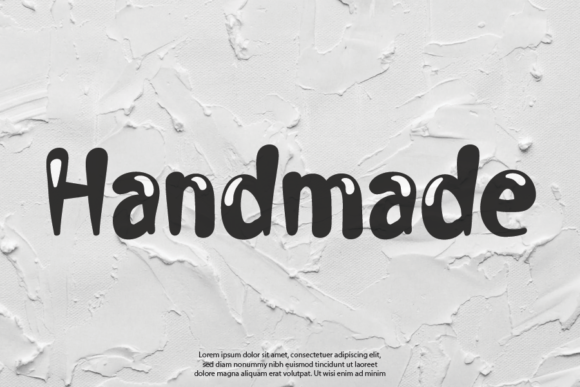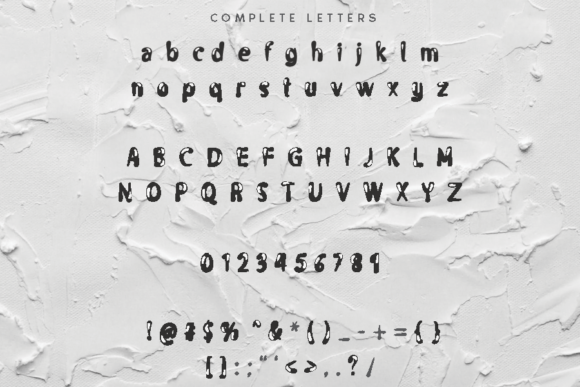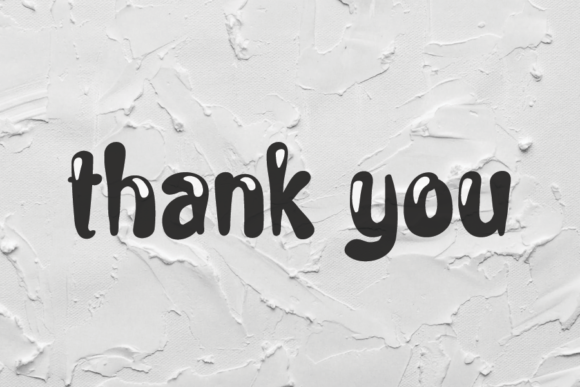
Discover the Magic of Ballon Quago Font
Have you ever stared at a blank page, waiting for inspiration to strike? The cursor blinks, and your mind goes blank. Suddenly, a burst of creativity hits you, and you envision the perfect design. It’s a moment every designer knows and loves. And that’s exactly what we’re about to explore – the perfect font to bring your designs to life: Ballon Quago Font.
This bold and unique display font is a game-changer for designers. Its friendly style makes it incredibly versatile, fitting a wide range of contexts. Whether you’re working on a logo, poster, or social media graphics, Ballon Quago Font is the perfect companion. Its value lies in its ability to elevate your designs, making them stand out from the crowd. With Ballon Quago Font, you can create outstanding designs that leave a lasting impression.
Key Features of Balloon Quago Font
- Font Family: Balloon Quago is a sans-serif font family with a unique, rounded design.
- Character Set: Includes a wide range of characters, including Latin, Cyrillic, and Greek alphabets, as well as punctuation and symbols.
- Unique Characteristics: Features a distinctive rounded design with a soft, friendly feel, making it suitable for various applications, including advertising, packaging, and editorial design.
Designer Review: Balloon Quago Font
Overall, I found the Balloon Quago font to be a quirky and playful addition to any design project. Here are some things that I think work well: ✨
- Unique Character: The font’s unusual shape and letterforms make it perfect for creating eye-catching headlines and titles.
- Flexibility: Balloon Quago can be used in a variety of contexts, from children’s books to advertisements and even branding.
- Fun Personality: The font’s bubbly and whimsical nature makes it great for projects that need a lighthearted tone.
However, there are also some limitations to consider: ⚠️
- Readability: At smaller font sizes, the letters can become difficult to read, making it less suitable for body text.
- Lack of Versatility: While Balloon Quago is great for certain projects, it may not be the best choice for more formal or serious designs.
In conclusion, Balloon Quago is a fun and versatile font that’s perfect for projects that need a playful touch. While it may have some limitations, its unique character and flexibility make it a valuable addition to any designer’s toolkit.
For best results, use the Ballon Quago font for titles and headings to create a unique and eye-catching design.
Use the Ballon Quago font to add a touch of elegance and sophistication to your designs, such as invitations or business cards.
Use the Ballon Quago font to add a touch of whimsy and playfulness to your presentations or documents, such as title slides or headings.
The Ballon Quago font is perfect for:
– Titles and headings
– Invitations and event designs
– Business cards and marketing materials
– Presentations and slides